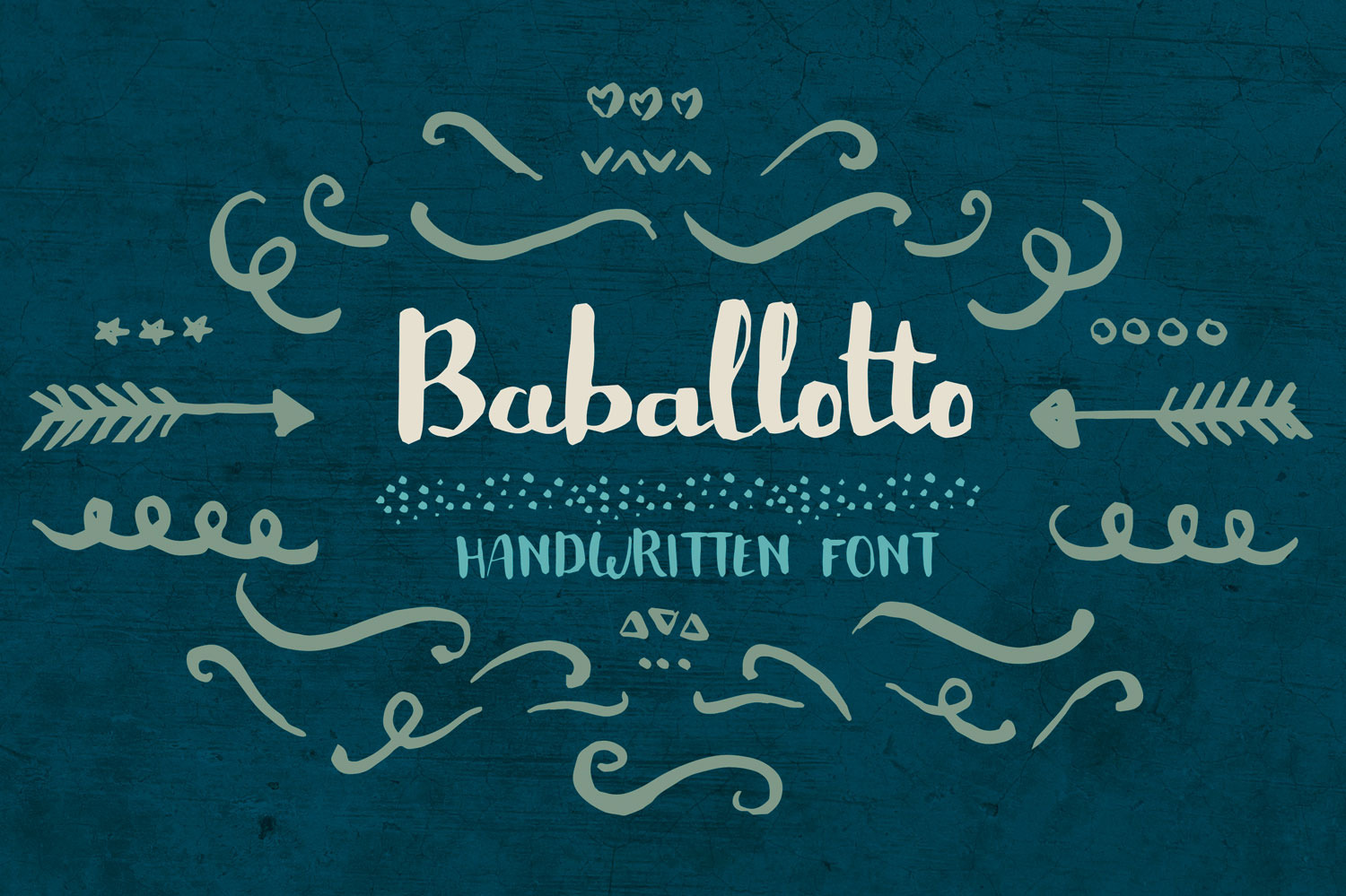
Baballotto font - Bold Brush Font
Handwritten font BABALLOTTO Baballotto is an inky brush script with heavy downstrokes, and skinny loops and upstrokes. It was made with a watercolor brush.
Baballotto contains standard characters, lowercase, uppercase, numbers, punctuation, international characters and 40 ornamental glyphs.